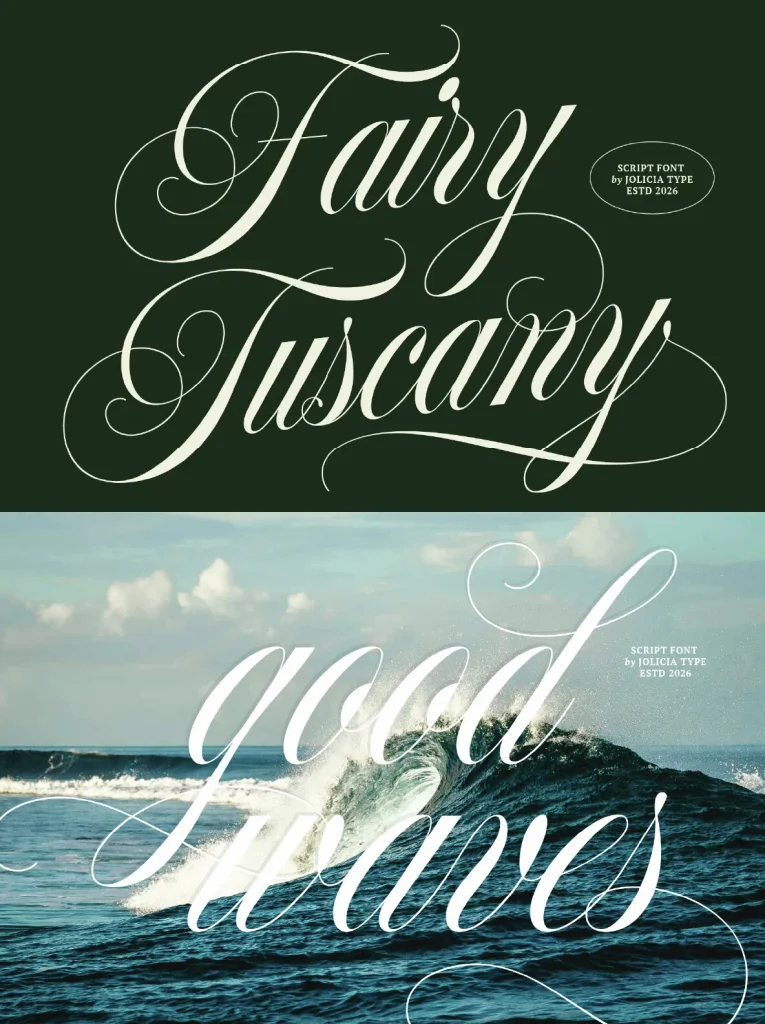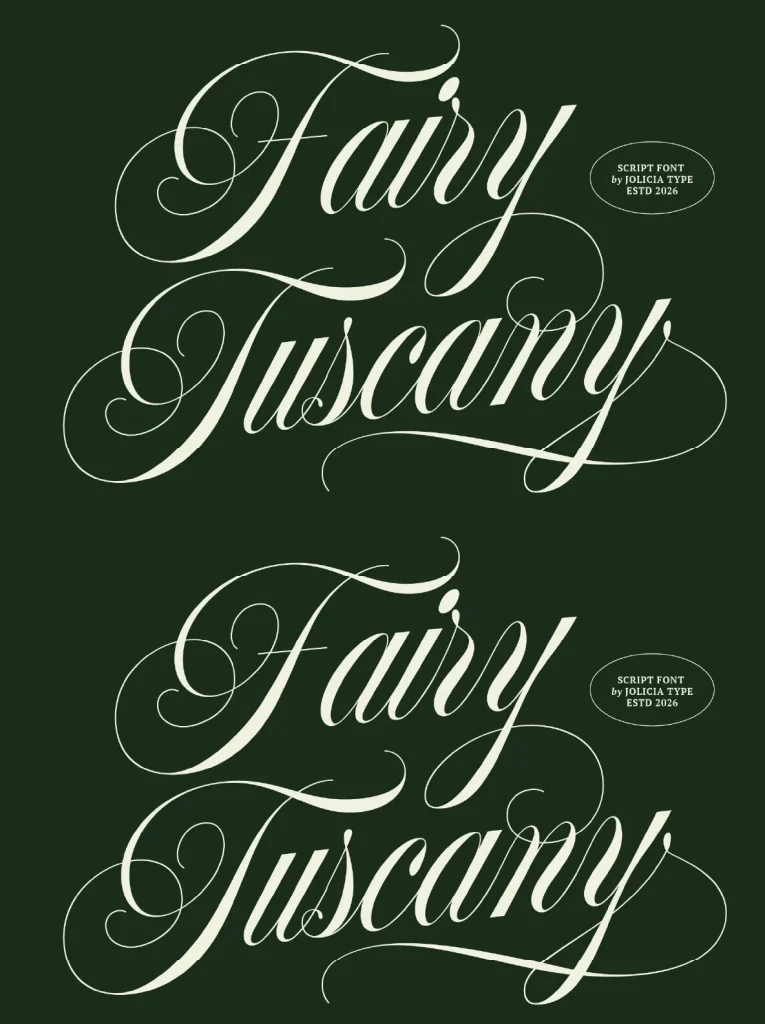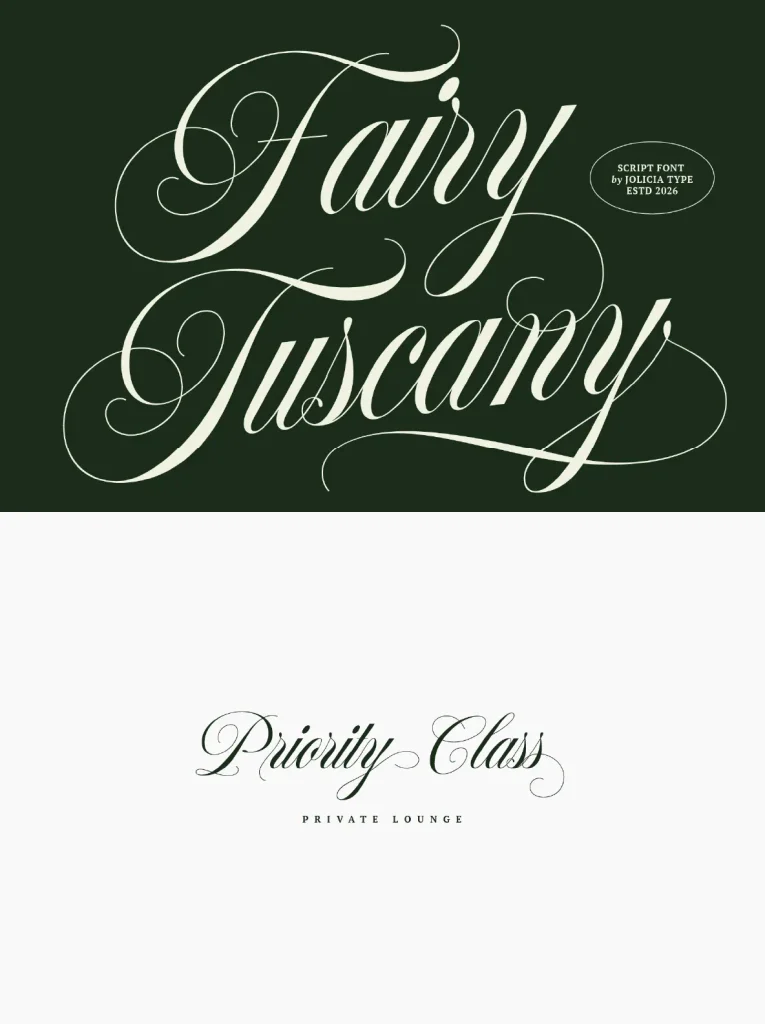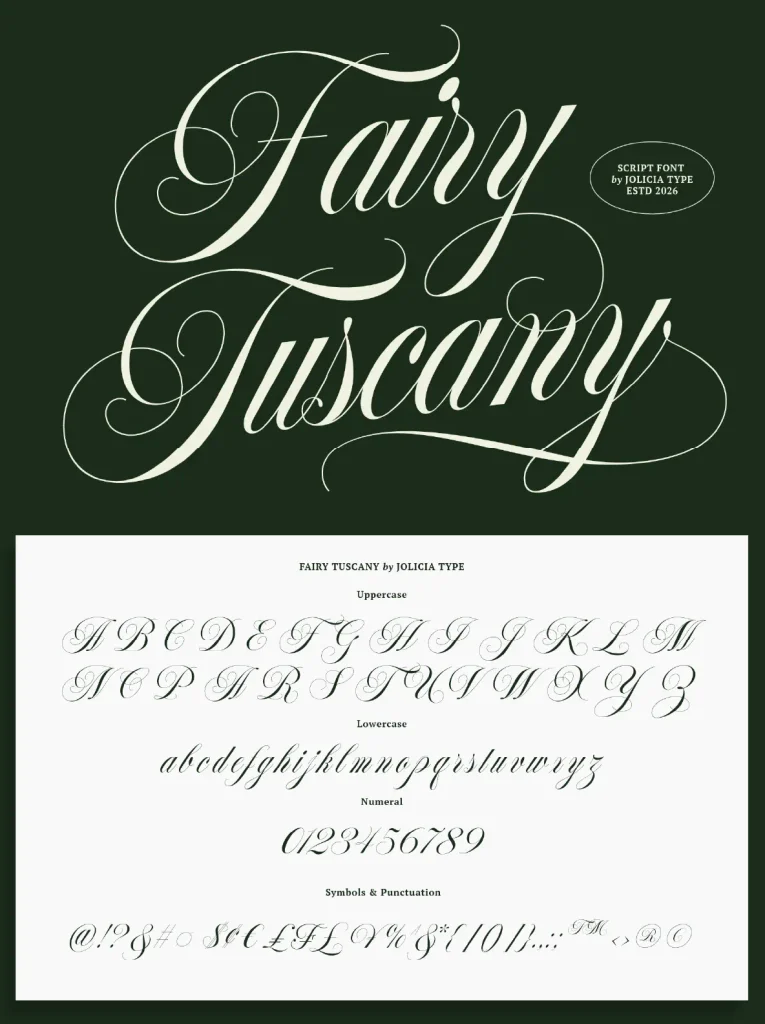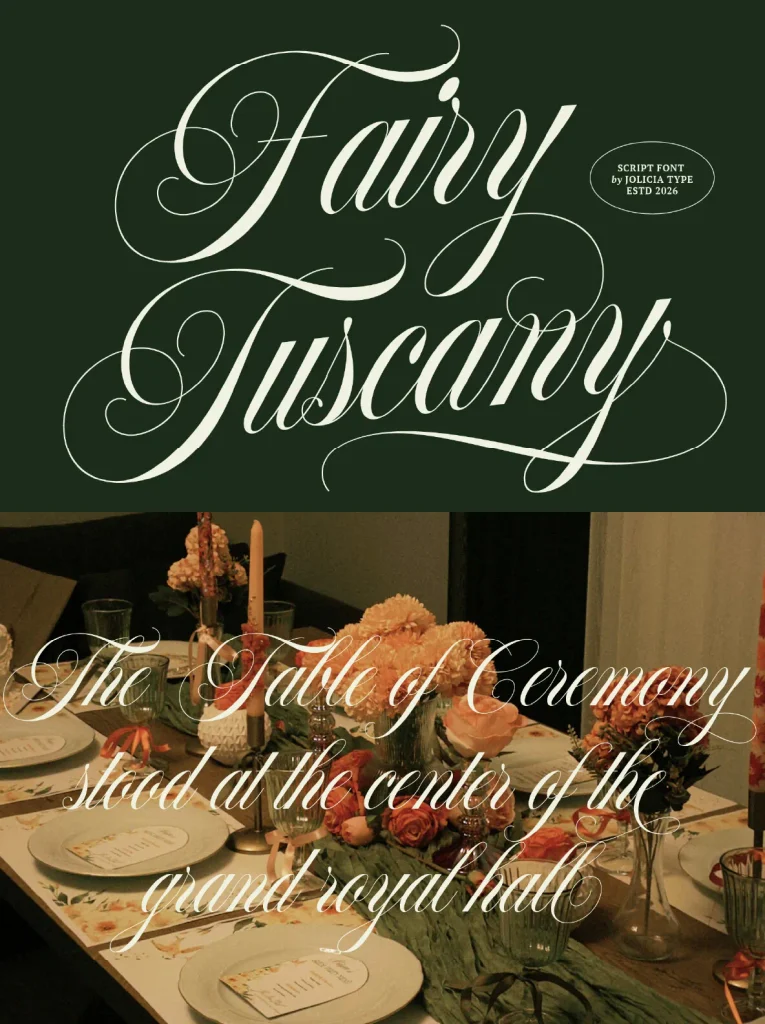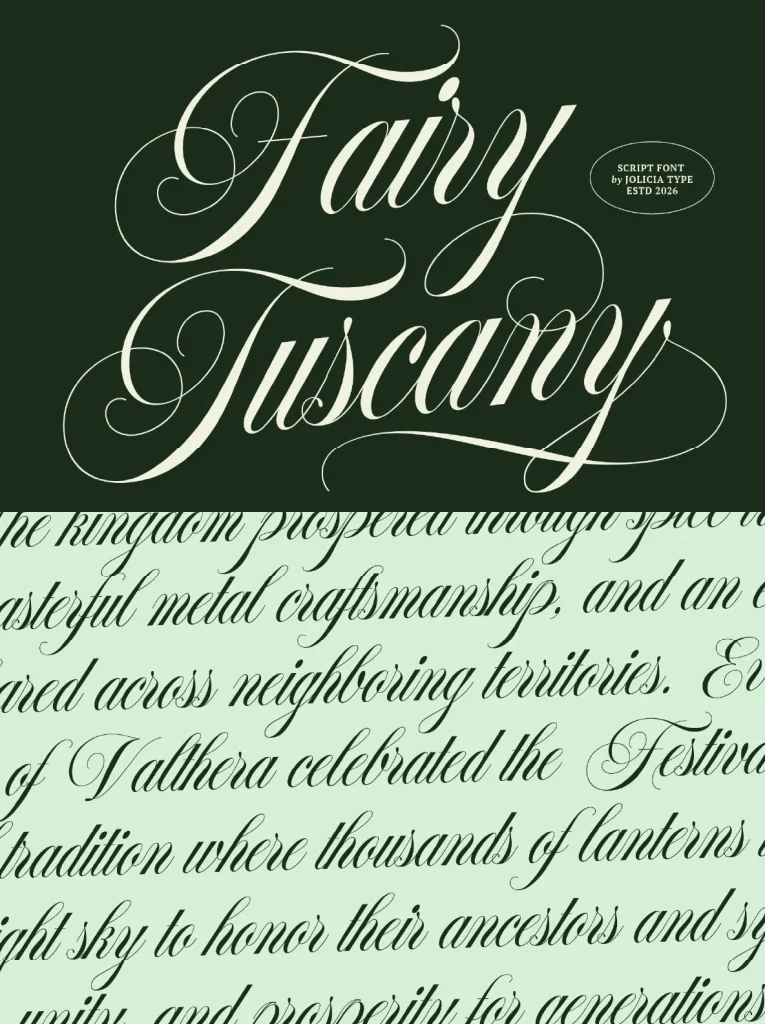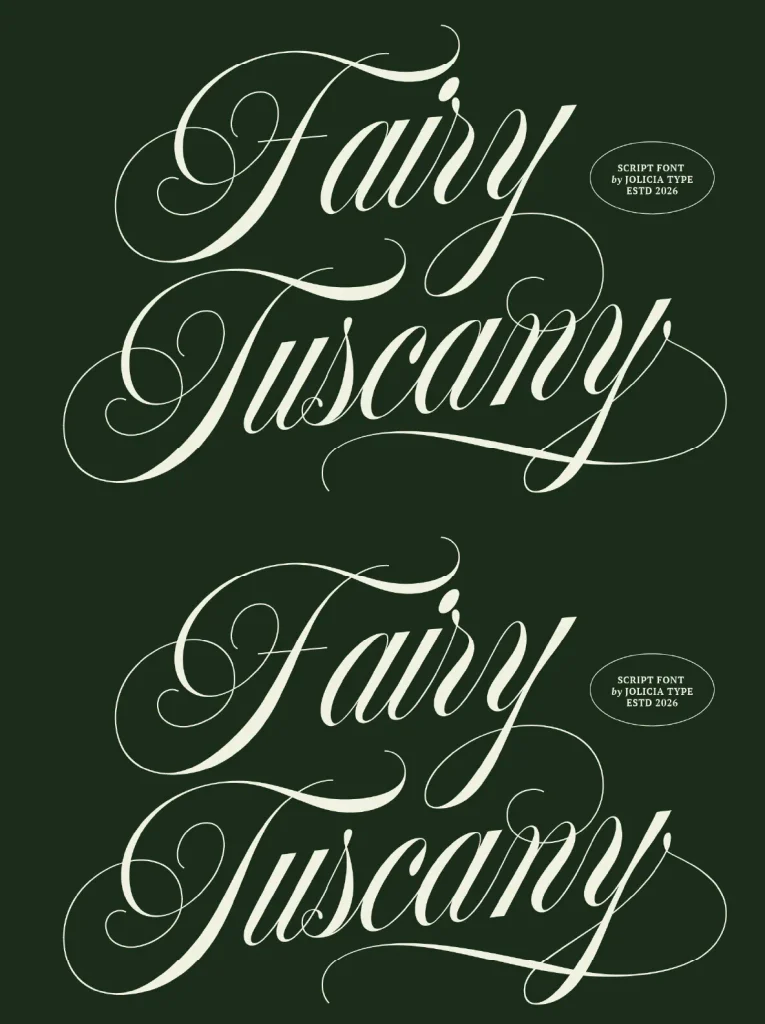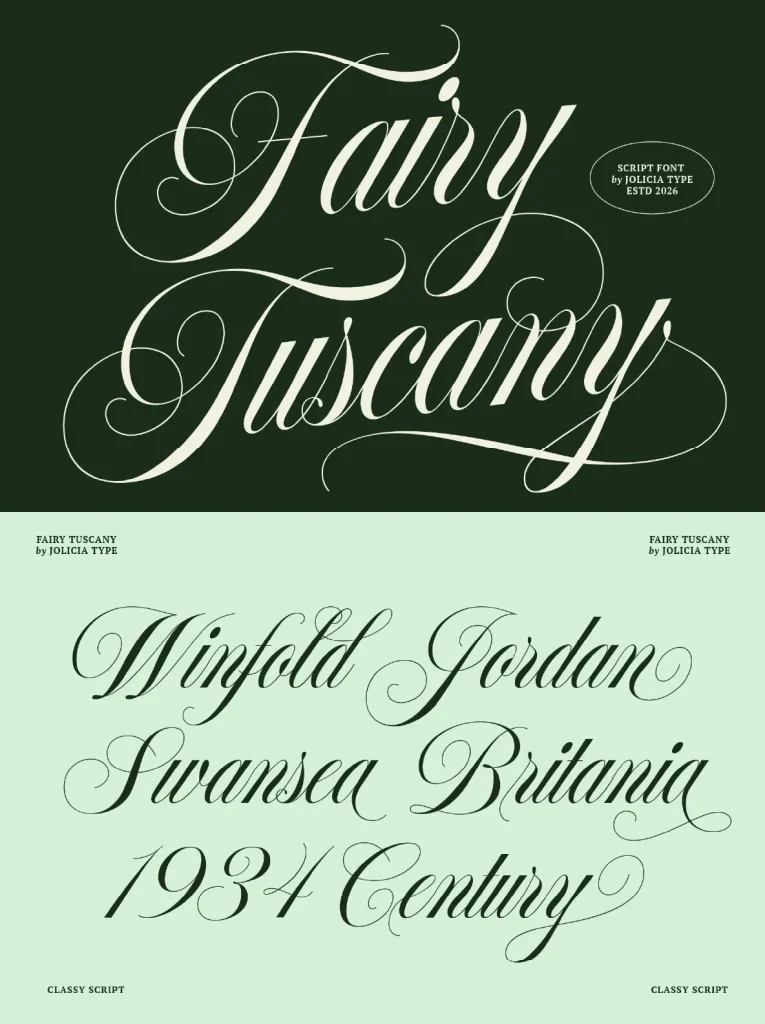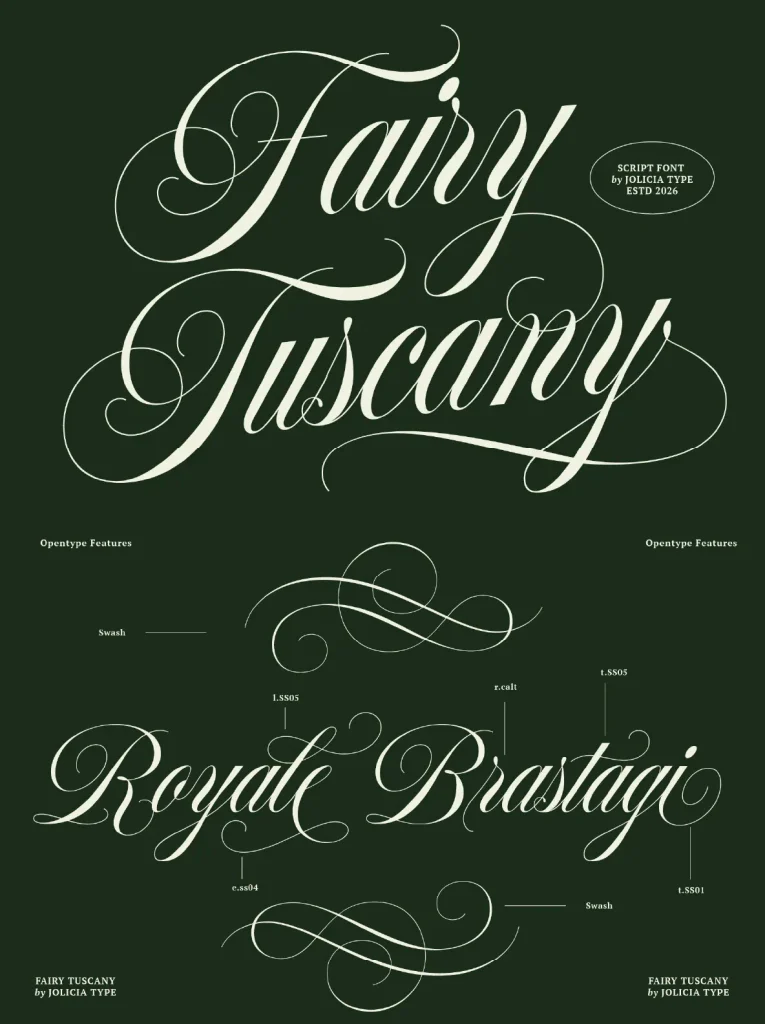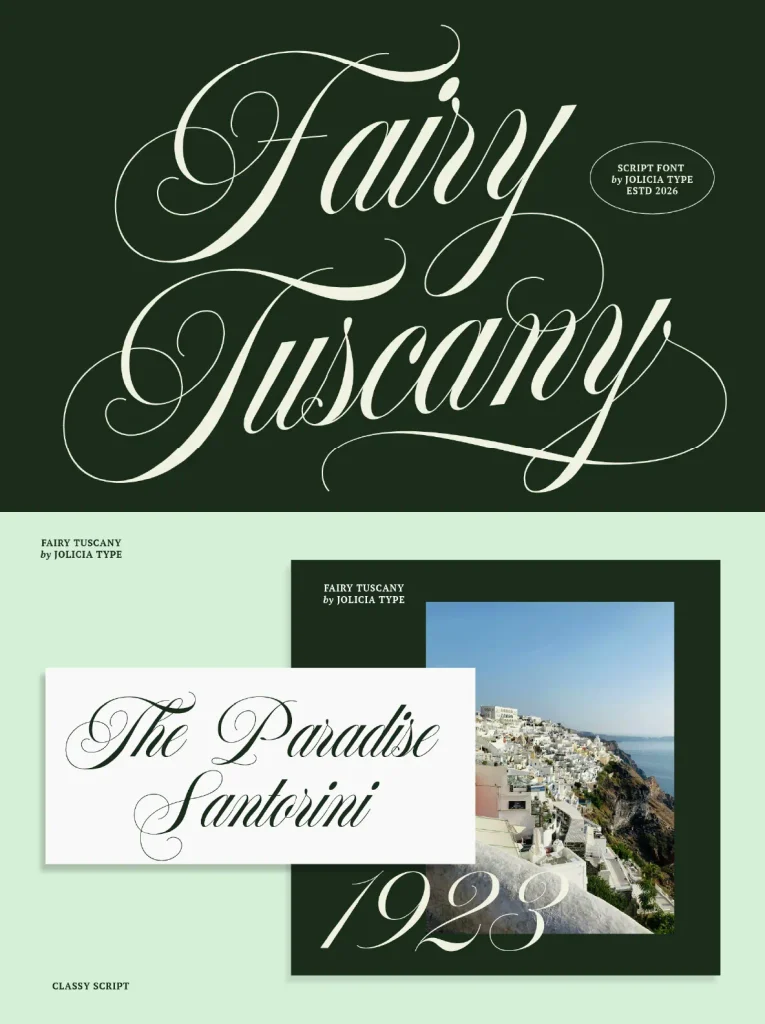
Fairy Tuscany — Romance in Script
Fairy Tuscany is a classy script font that brings elegant calligraphy together with modern luxury aesthetics. Flowing swashes, graceful curves, and refined letterforms give it a sophisticated, romantic impression, making it a strong choice for premium branding and expressive visual identities.
Its stylish handwritten look suits wedding invitations, feminine logos, fashion branding, beauty packaging, social media quotes, editorial design, and luxury typography projects. With timeless elegance and artistic detail, Fairy Tuscany adds a chic, high-end touch to every creative composition while keeping the tone polished, graceful, and memorable.